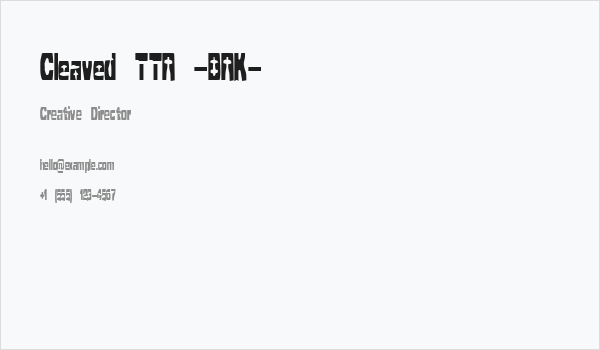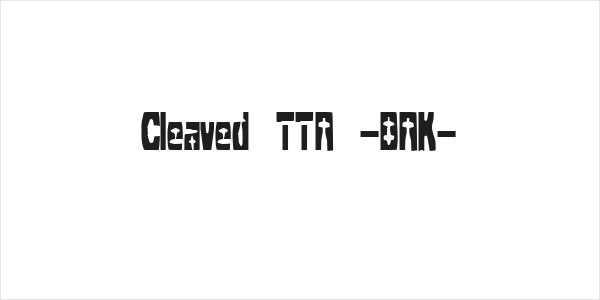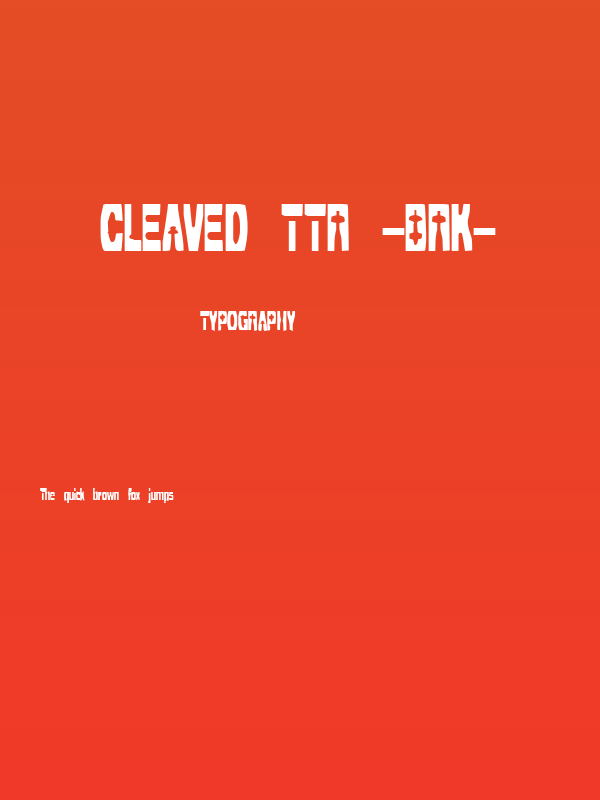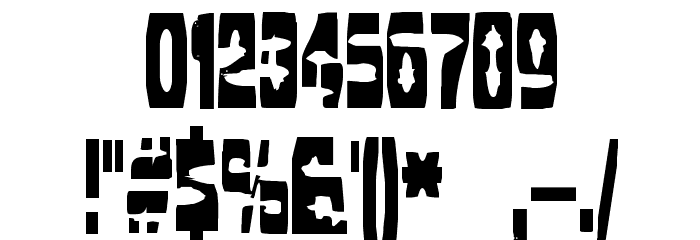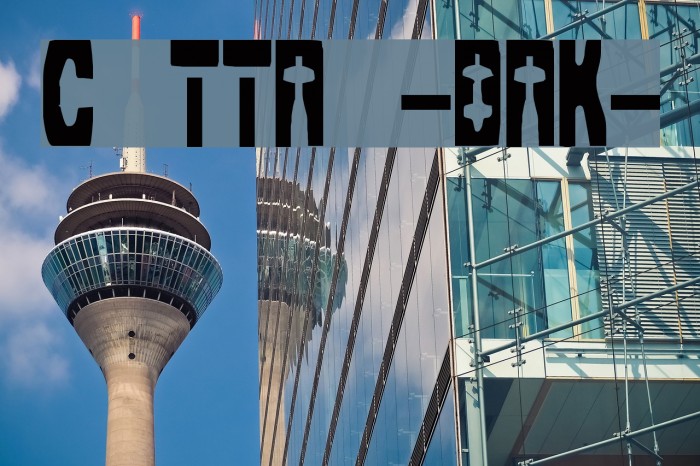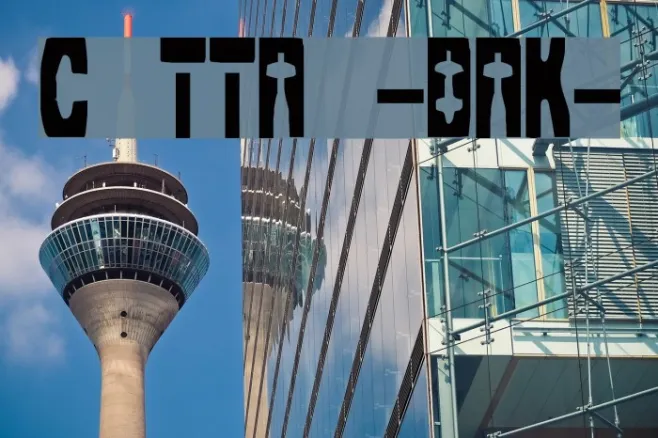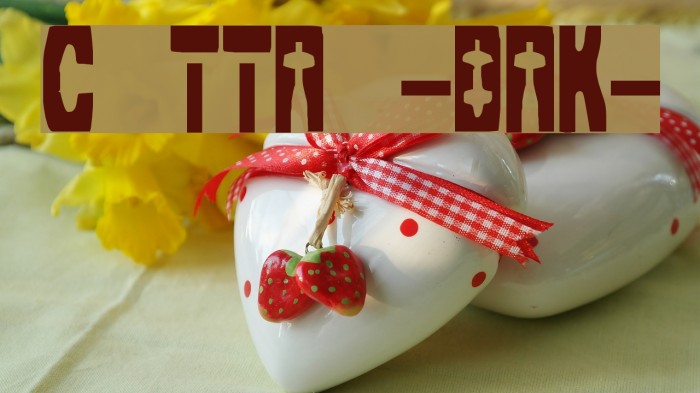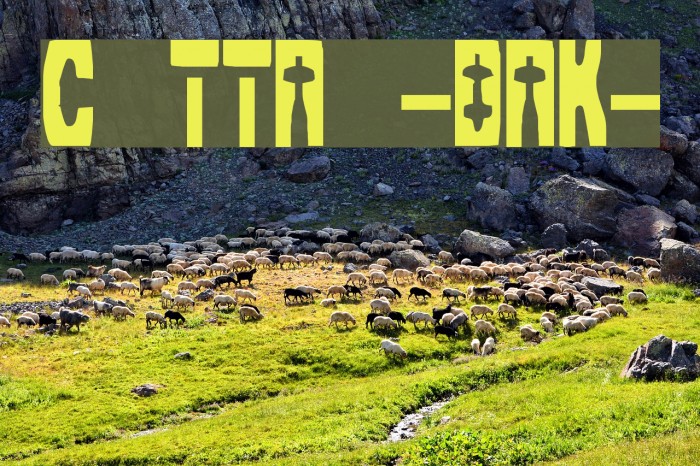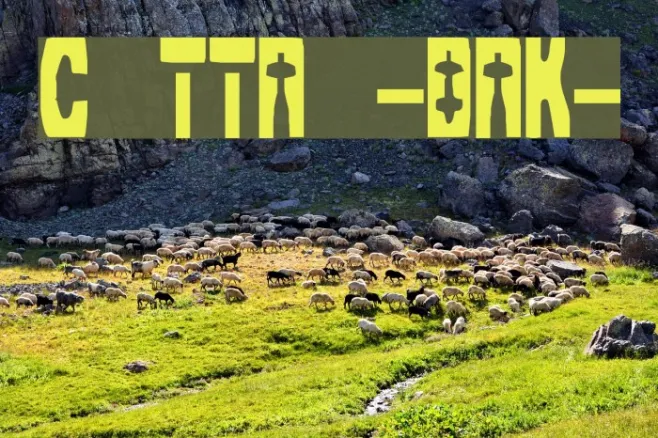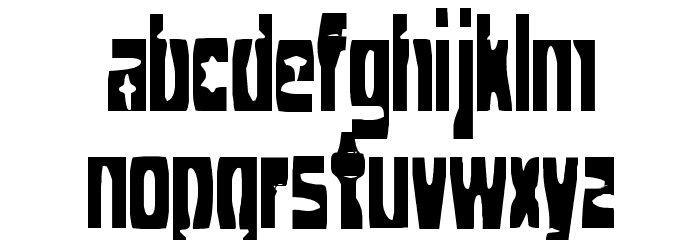
Cleaved TTR -BRK- Font
Cleaved TTR -BRK- Description
This font features a bold and striking design with a unique, fragmented appearance. The characters are heavily stylized, with sharp angles and irregular cuts that create a sense of movement and energy. The uppercase and lowercase letters maintain a consistent width, giving the font a cohesive look despite its unconventional style. Numbers and special characters follow the same design principles, ensuring uniformity across all glyphs. The font's high contrast and distinctive shapes make it ideal for attention-grabbing designs.
| Overall Style | Modern, Edgy |
| Proposed Projects | Ideal for posters, album covers, branding projects, and any design needing a bold, edgy look. |